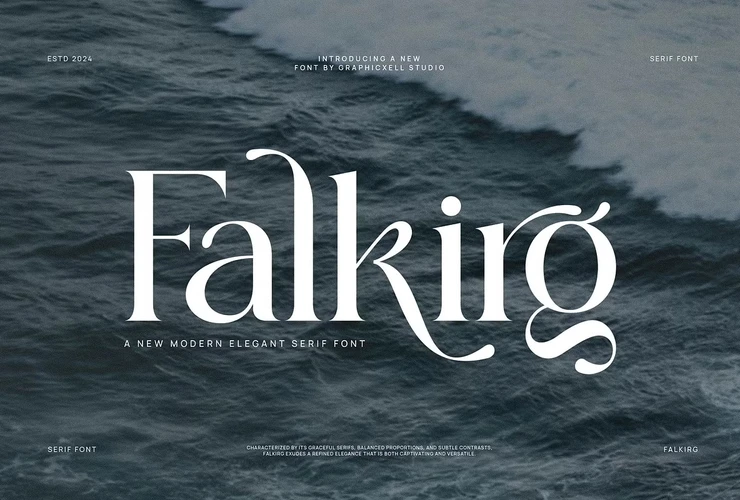
Transform Your Designs with Falkirg Modern Serif Font
Falkirg Modern Serif Font by Graphicxell is a new typeface that seamlessly blends traditional elegance with a modern touch. This serif font, with its high level of sophistication, is perfect for adding a unique charm to various design projects. Its standout feature is the blunt serifs, where the counter strokes curve and twist smoothly, offering a distinctive and creative look.
Key Features of Falkirg Modern Serif Font
Falkirg is characterized by several unique features:
Blunt Serifs: Unlike traditional sharp serifs, Falkirg’s rounded and blunt edges provide a softer, more approachable aesthetic.
Smooth Curves: The smoothly curving counter strokes add a dynamic and creative touch to the font.
Bold and Thin Strokes: While predominantly bold, Falkirg incorporates thinner strokes in certain areas, creating a balanced visual appeal.
Ligatures: The inclusion of ligatures allows for enhanced creativity and decorative text options.
Ideal Uses for Falkirg
The versatility of Falkirg makes it suitable for a wide range of design applications, including:
Product Designs: Enhance product packaging and labels with an elegant serif font.
Invitations: Craft stylish and sophisticated invitations for various events.
T-Shirts: Create trendy T-shirts that stand out with a modern serif touch.
Social Media Posts: Elevate your social media graphics with Falkirg’s unique aesthetic.
Informal Projects: Its casual style is perfect for numerous informal design projects.
Enhance Your Design Projects
Whether used for plain text or as decorative text, Falkirg Modern Serif Font significantly boosts the visual appeal of any design. Its blend of traditional and creative elements ensures a superior design experience for both designers and their audience.